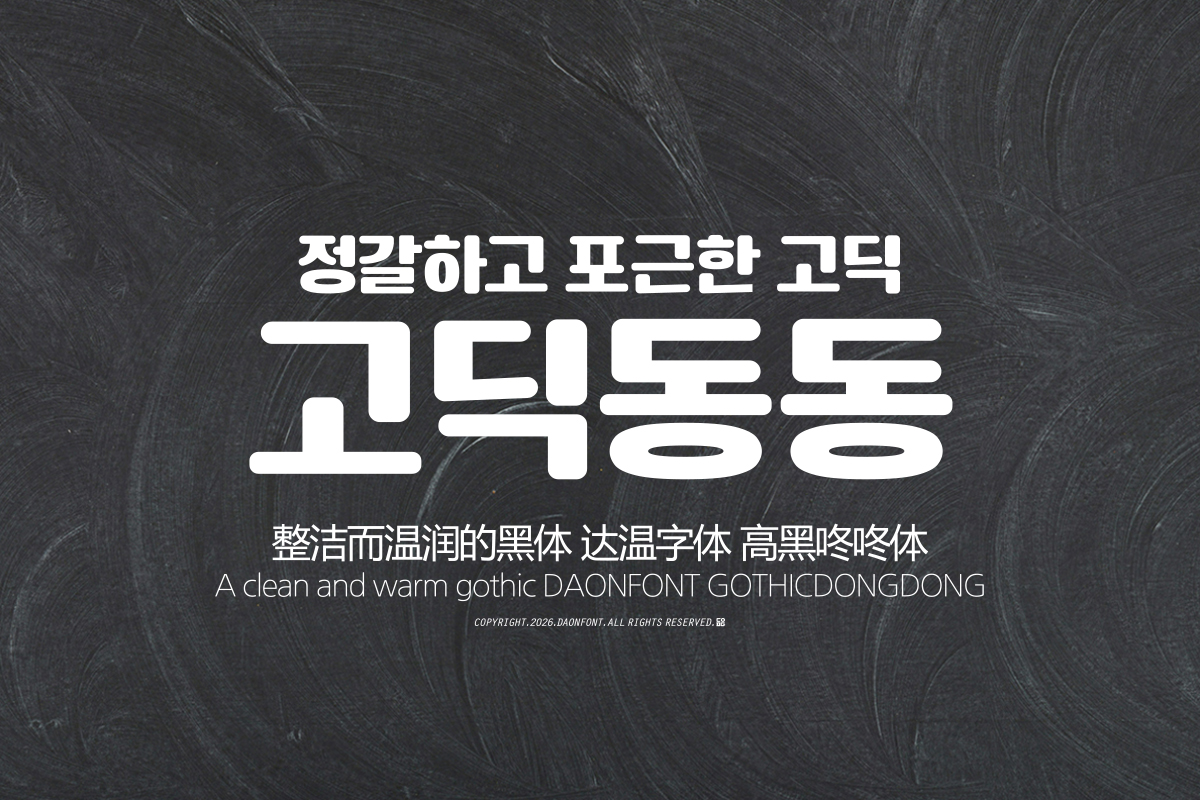
DAON GOTHICDONGDONG
'GOTHICDONGDONG' is a Gothic-style Hangul typeface with a rounded and soft impression. Based on a solid Gothic structure, the edges of the characters are softened to convey a friendly and cheerful atmosphere. Designed with a balanced character structure and stable proportions, it is suitable for use in titles while maintaining comfortable readability in sentences.